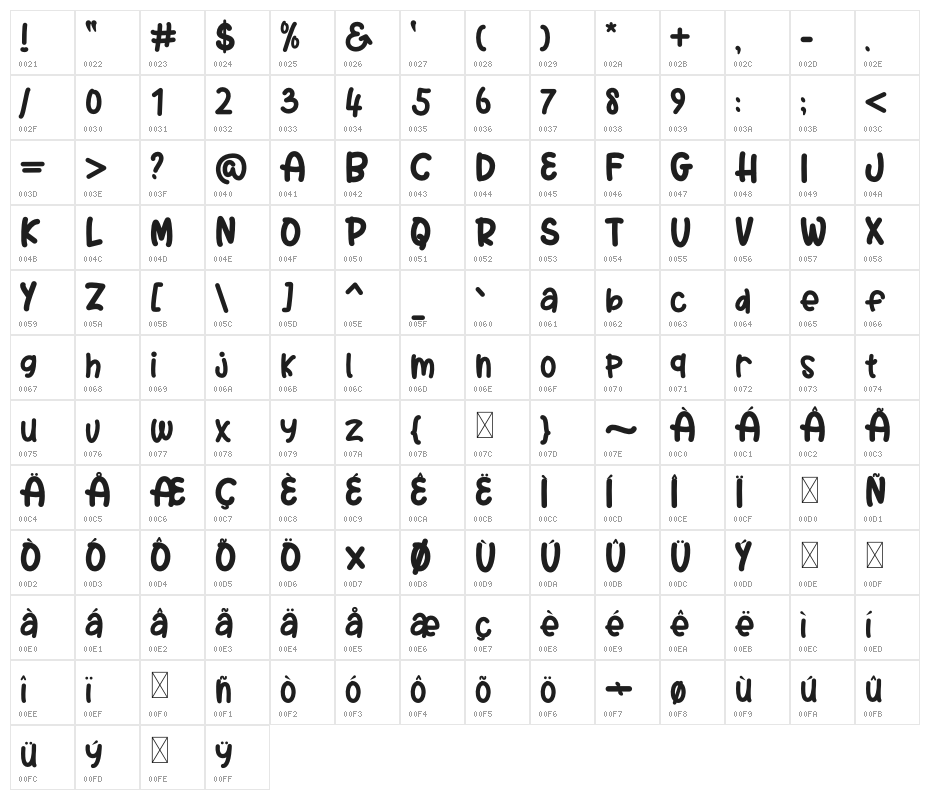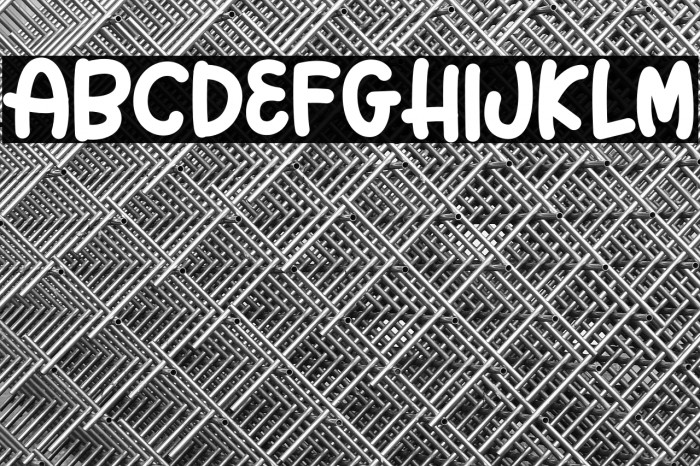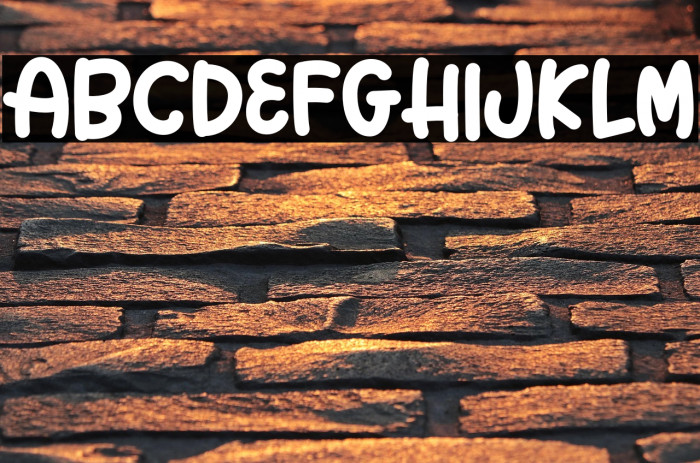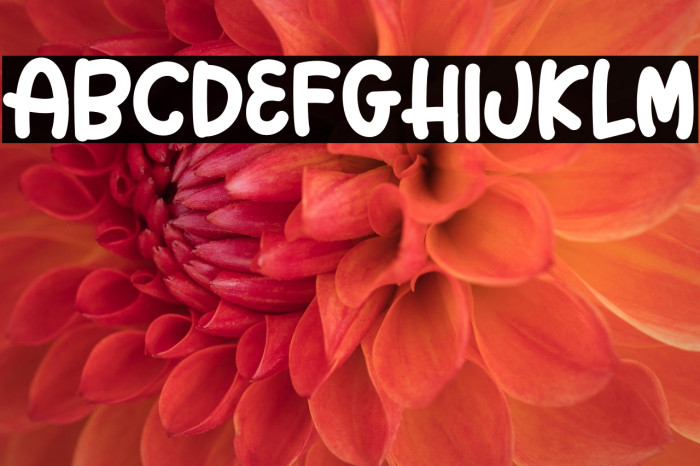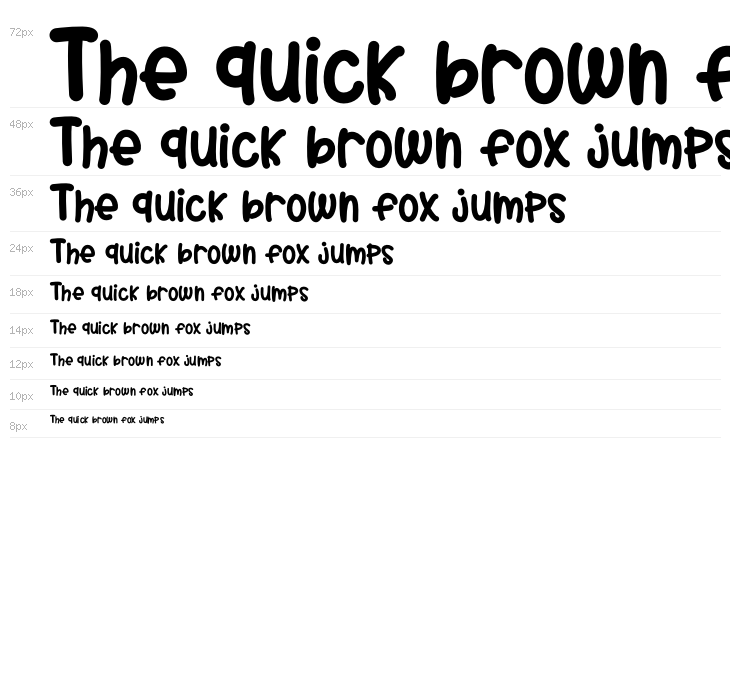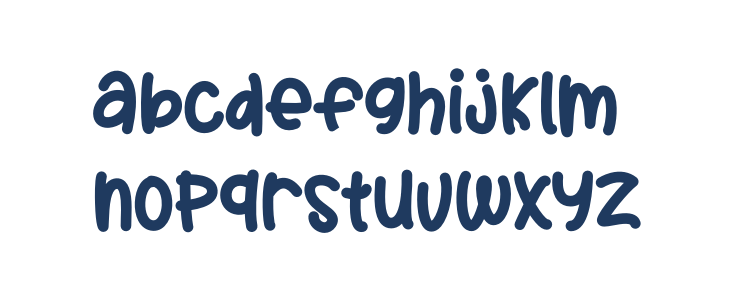
Audrey Kids Font
Audrey Kids Description
This playful and whimsical font features rounded, bubbly characters that exude a sense of fun and creativity. The letters are bold and slightly irregular, giving them a hand-drawn appearance that is both charming and approachable. The font maintains a consistent thickness throughout, with smooth curves and a friendly demeanor. Its informal style makes it ideal for projects aimed at children or for conveying a lighthearted tone. The numbers and special characters are designed to match the playful aesthetic, ensuring a cohesive look across all text elements.
| Proposed Projects | Ideal for children's books, playful branding, party invitations, and educational materials. |